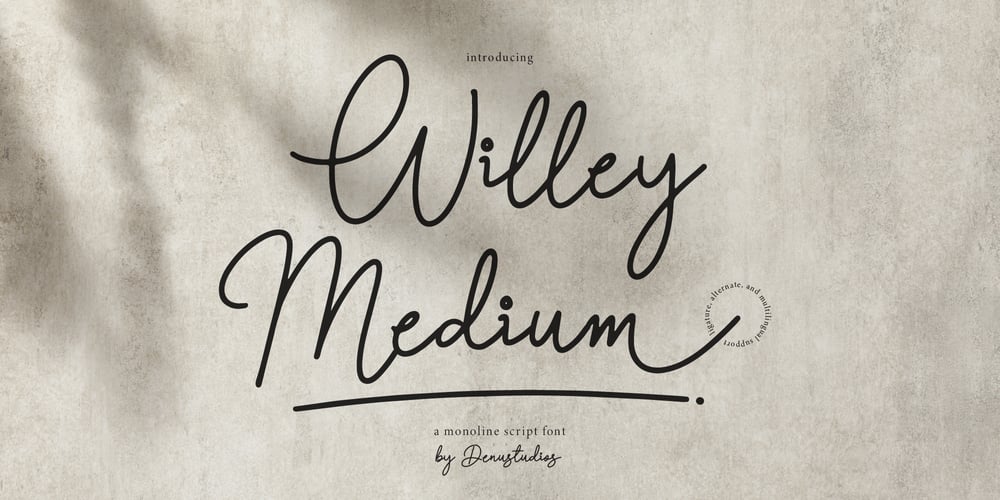
Willey Medium
Willey Medium font
Willey Medium Font Family was designed by Dede Nugraha and published by Denustudio. Willey Medium contains 2 styles and family package options. Willey Medium | Monoline Script Font, from Denustudios, suitable for any projects such as: logos, branding projects, homeware designs, product packaging, mugs, quotes, posters, shopping bags, t-shirts, book covers, name card, invitation cards, greeting cards, label, photography, watermark, special events, and all your other lovely projects that need a Monoline Script Font taste.===========================================================================What’s Included : Regular and Italic Web Font Standard glyphs Alternate and Ligature Works on PC & Mac Simple installations Accessible in the Adobe Illustrator, Adobe Photoshop, Adobe InDesign, even work on Microsoft Word and Other Software. PUA Encoded Characters – Fully accessible without additional design software. Fonts include multilingual support Hope you enjoy with our font!